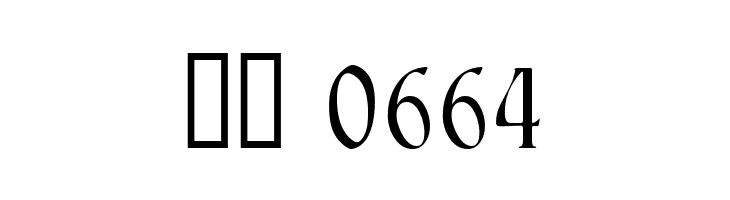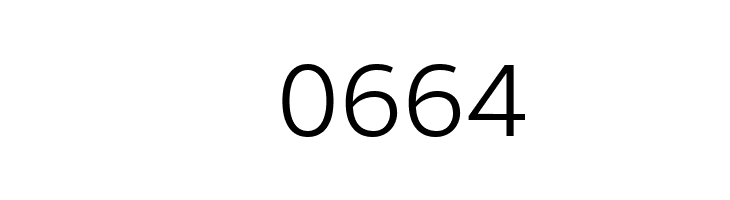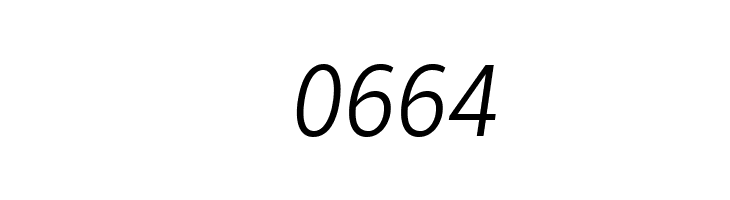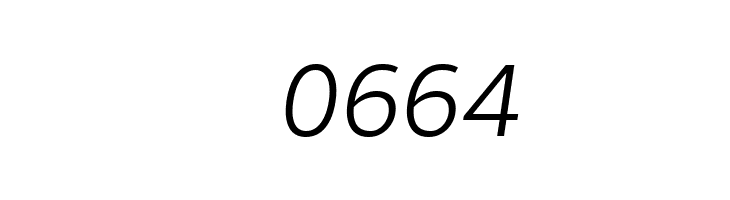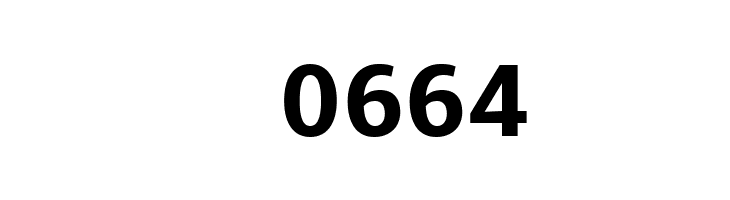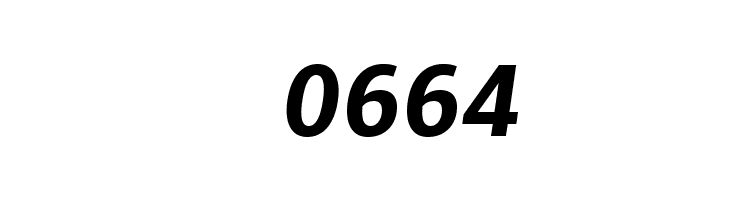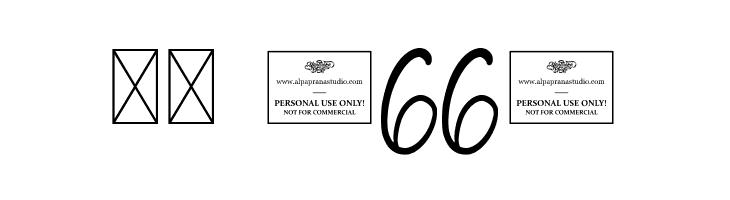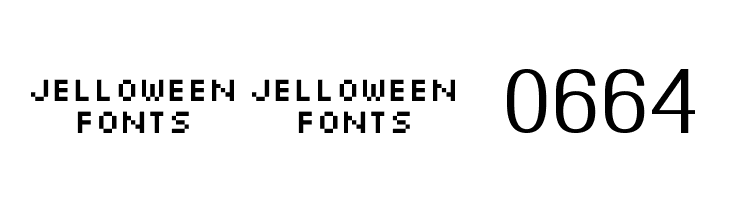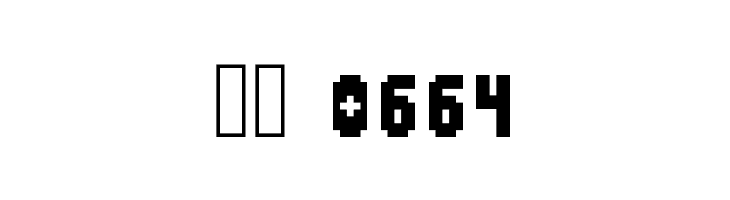
( Fonts by Punchcut )
A bold, modern sans-serif font with excellent legibility and balance.
( Fonts by Punchcut )
A bold, italicized sans-serif font with a modern and dynamic style.
( Fonts by Punchcut )
A modern, italic sans-serif font with smooth curves and consistent stroke width.
( Fonts by Punchcut )
A clean, modern sans-serif font with a light weight and excellent legibility.
( Fonts by Punchcut )
A modern, light, and condensed sans-serif font with clean lines and uniform stroke width.
( Fonts by Punchcut )
A sleek, modern, light, and condensed italic font with tight spacing.
( Fonts by Punchcut )
A modern, light, and italic font with smooth strokes and balanced proportions.
( Fonts by Punchcut )
A clean, modern sans-serif font with uniform strokes and excellent readability.
( loosydesign - Fabian Pfeifhofer - www.loosydesign.com )
A modern, geometric font with artistic and futuristic elements.
A playful and whimsical script font with a handwritten style.
A playful and artistic script font with flowing, cursive letterforms.
A lively script font with fluid, continuous strokes and a personal touch.
( Andreas Siess - www.andi-siess.de/ )
A bold, geometric outline font with a modern, industrial look.
( Andreas Siess - www.andi-siess.de/ )
A bold, geometric, and condensed font ideal for impactful headlines.
( Andreas Siess - www.andi-siess.de/ )
A geometric, angular font with consistent stroke width and a modern aesthetic.
( Andreas Siess - www.andi-siess.de/ )
A modern, geometric font with thin, rounded lines and a minimalist style.
( Andreas Siess - www.andi-siess.de/ )
A bold, heavy, and condensed font with rounded edges and a modern, industrial feel.
A lively, cursive handwritten font with expressive, flowing letterforms.
( Fonts by Alpaprana Studio )
( Fonts by NihStudio )
Casual, playful handwritten font.
An artistic and elegant font with flowing curves and distinctive embellishments.
An elegant and artistic font with tall, slender letterforms and intricate detailing.
( George Williams - web.archive.org/web/20051223080638/bibliofile.mc.duke.edu/gww/fonts/fonts.html )
A bold, decorative font with high contrast and artistic flair.
( George Williams - web.archive.org/web/20051223080638/bibliofile.mc.duke.edu/gww/fonts/fonts.html )
An elegant, italicized font with medium contrast and flowing design.
( George Williams - web.archive.org/web/20051223080638/bibliofile.mc.duke.edu/gww/fonts/fonts.html )
Elegant italic ligatures with smooth, connected strokes and balanced contrast.
( George Williams - web.archive.org/web/20051223080638/bibliofile.mc.duke.edu/gww/fonts/fonts.html )
An elegant, decorative font with intricate ligatures and flowing curves.
( George Williams - web.archive.org/web/20051223080638/bibliofile.mc.duke.edu/gww/fonts/fonts.html )
An elegant outline font with art deco influences and unique character flourishes.
( George Williams - web.archive.org/web/20051223080638/bibliofile.mc.duke.edu/gww/fonts/fonts.html )
A decorative font with sloped small caps and artistic flair.
( George Williams - web.archive.org/web/20051223080638/bibliofile.mc.duke.edu/gww/fonts/fonts.html )
A decorative font with elegant, artistic letterforms and playful curves.
( Fonts by Sam Wang )
An artistic and decorative font with elongated strokes and intricate details.
( Dry Heaves - www.drybohnz.com/ )
A bold, jagged, and decorative font with a rugged, hand-carved appearance.
( Fonts by Gyom Seguin - last-soundtrack.daportfolio.com )
A bold, distressed font with a gritty, textured appearance.
A modern, elegant script font with graceful curves and unique swashes.